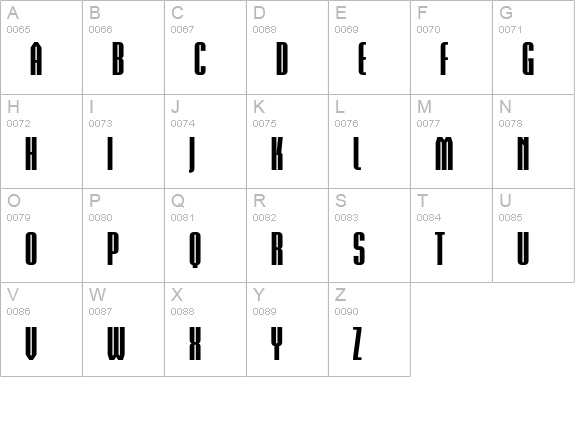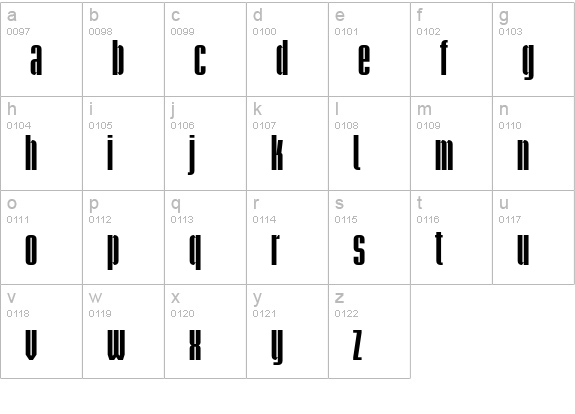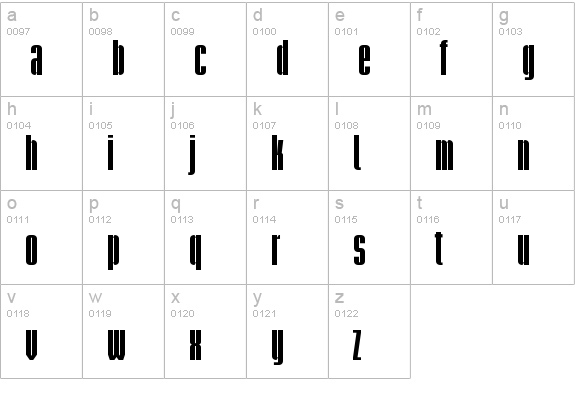
Briem Akademi Std Black Condensed is a maximum-weight, dramatic, condensed-width variant in the Briem typeface family \xE2\x80\x94 well suited to maximum-impact headlines, posters, and packaging.
Briem Akademi Std Black Condensed is a striking and bold font that commands attention with its condensed and powerful appearance. This font exudes a sense of strength and sophistication, making it ideal for headlines, titles, and bold statements. Its sharp edges and clean lines give it a modern and sleek look that is sure to make a statement in any design project. And the best part is, Briem Akademi Std Black Condensed is available for free download at FontsMarket.com! You can easily add this versatile and eye-catching font to your collection without any cost, making it a valuable addition to your design arsenal. Whether you're working on branding, advertising, or any other creative project, Briem Akademi Std Black Condensed is a font that will help you make a bold and memorable impact.